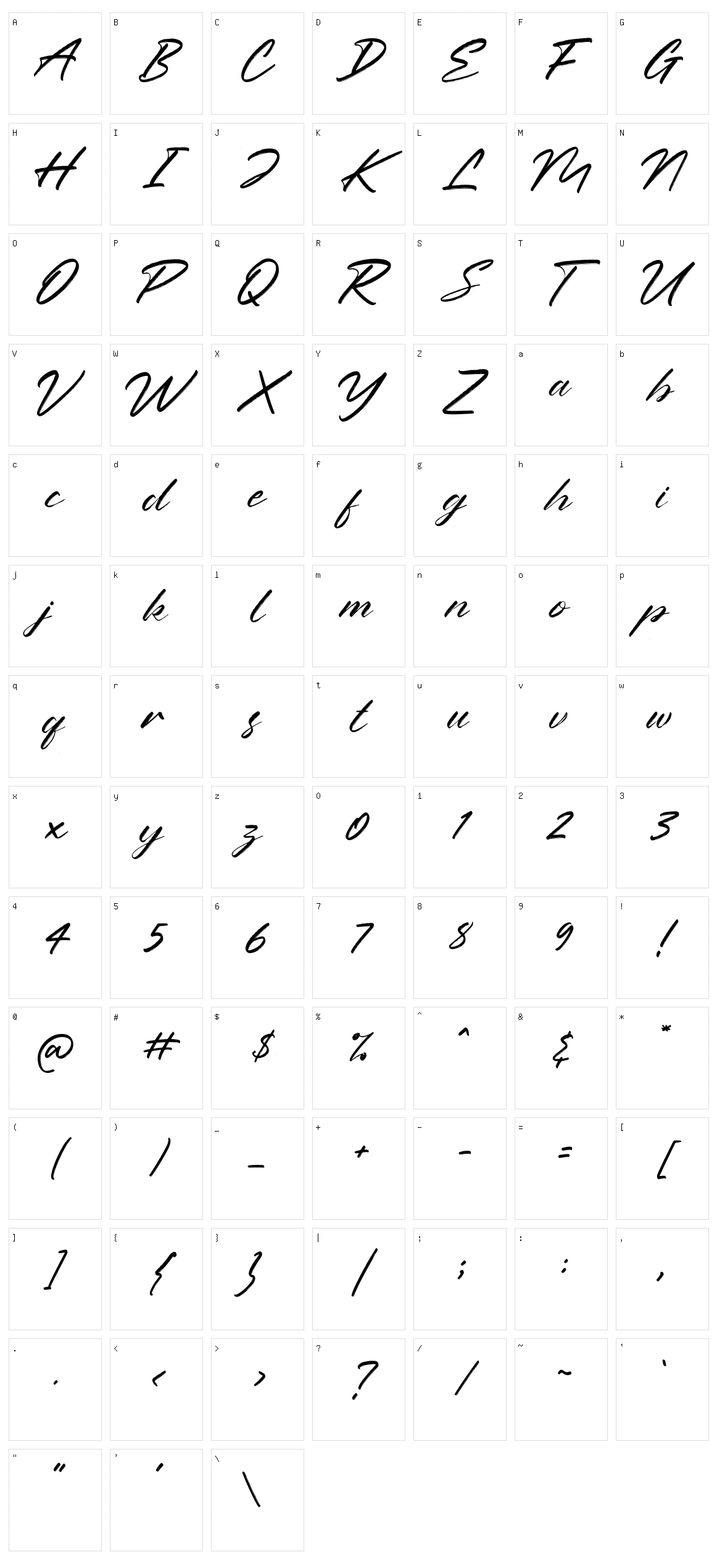
The free font Polandia is carefully designed by Graphicfresh, showcasing a thoughtful balance of creativity and usability and falls under the Script font style. When you download the ZIP file, it contains only 50.77 KB of font files, making it lightweight and quick to download. Please review the license details below to understand permitted usage and distribution rights. If license information is not available, we recommend using this font for personal projects only or contacting the author directly for commercial usage permissions.